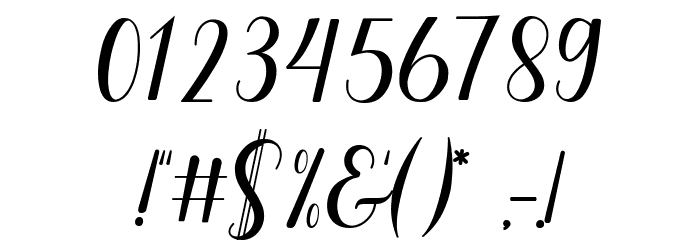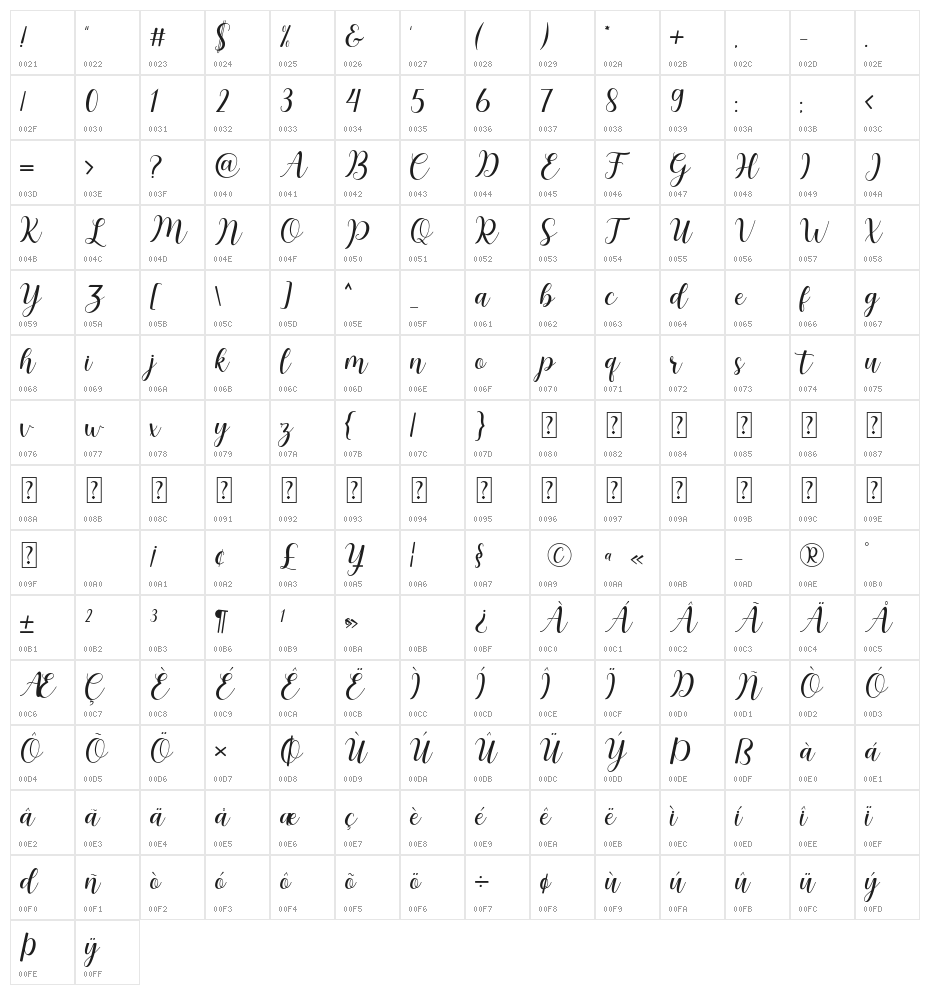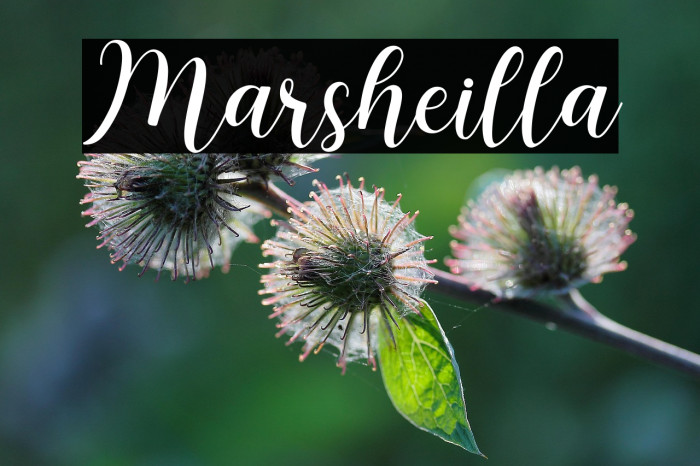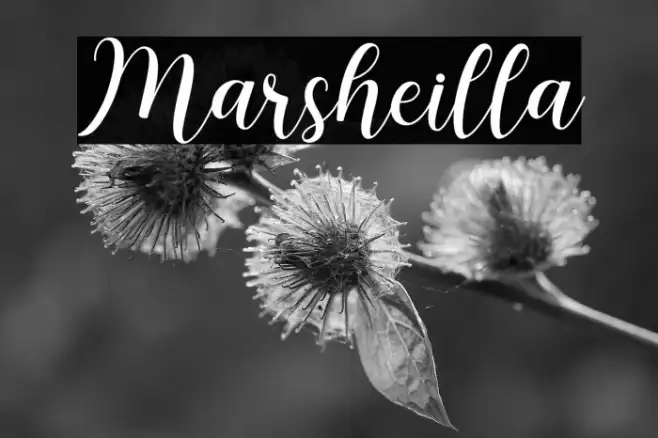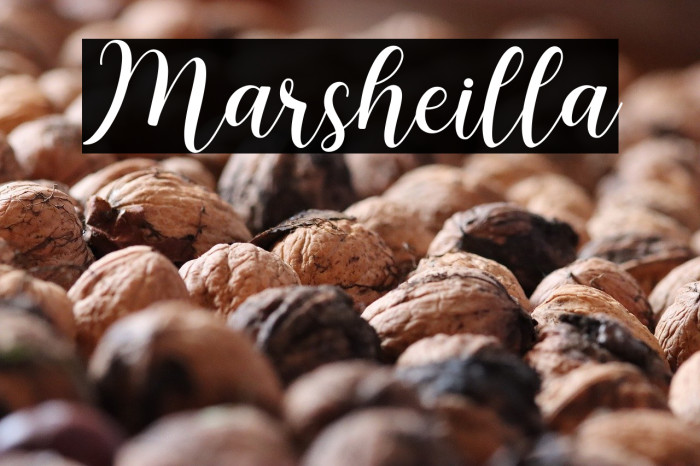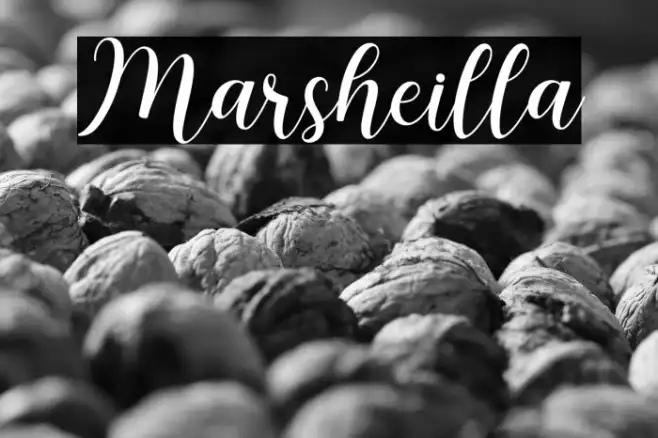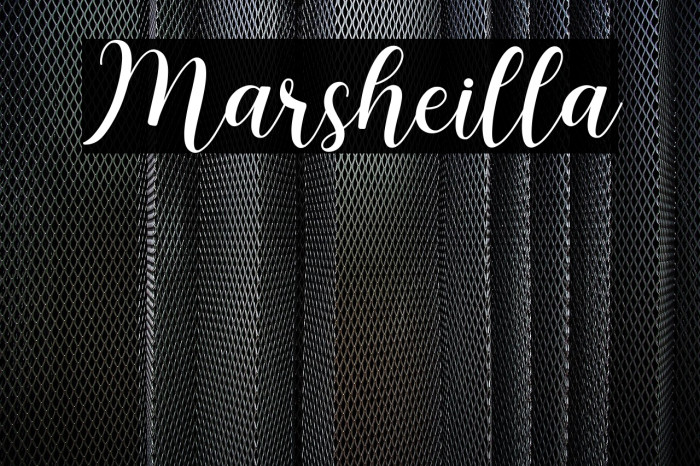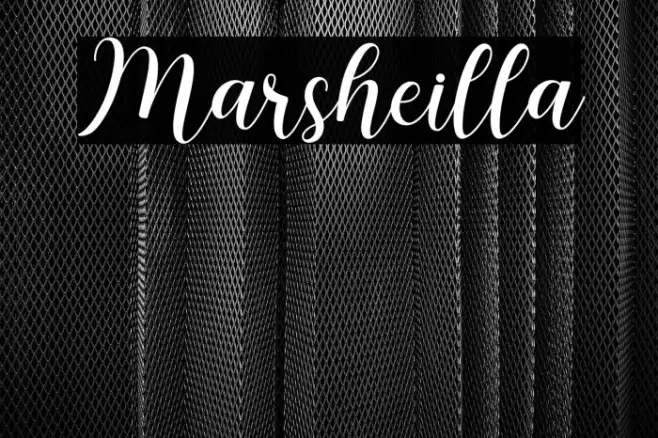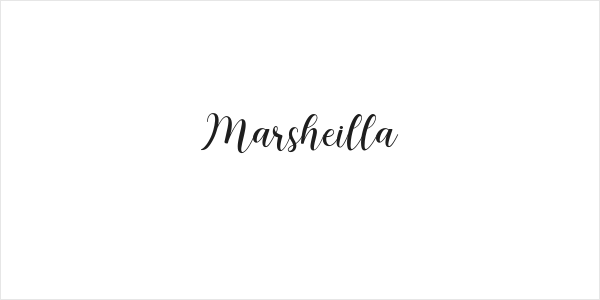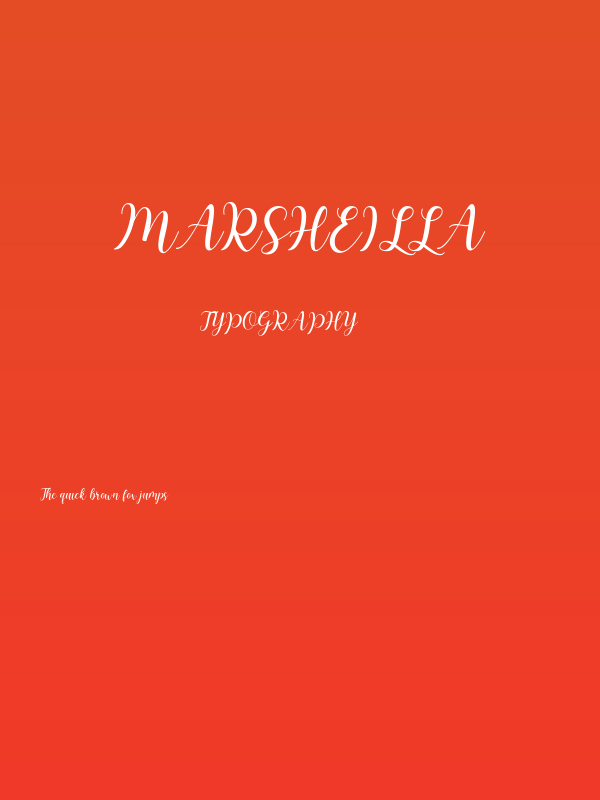
Marsheilla Font
Marsheilla Description
This font exudes elegance and sophistication with its flowing, cursive script style. Each letter is crafted with a smooth, continuous stroke, giving it a handwritten appearance. The uppercase letters are ornate and slightly larger, providing a striking contrast to the more delicate lowercase letters. The numbers and special characters maintain the same fluidity and grace, ensuring a cohesive look across all text. The font's overall design is both modern and timeless, making it suitable for a variety of applications where a touch of elegance is desired.
| Overall Style | Elegant, Modern |
| Proposed Projects | Ideal for wedding invitations, elegant branding, personal stationery, and luxury product packaging. |